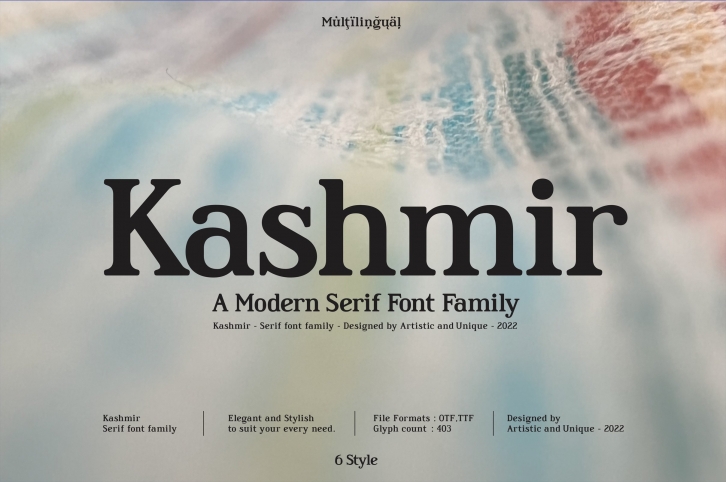
Kashmir is a beautiful font that was designed by ARTISTIC AND UNIQUE. It's a great choice for designers and creatives who need such a font. It was released on June 28, 2022 and the file size is 21.81 MB. Kashmir may give a more youthful, expressive and casual look to your project. It is a very beautiful, refined, elegant, and high-quality font.